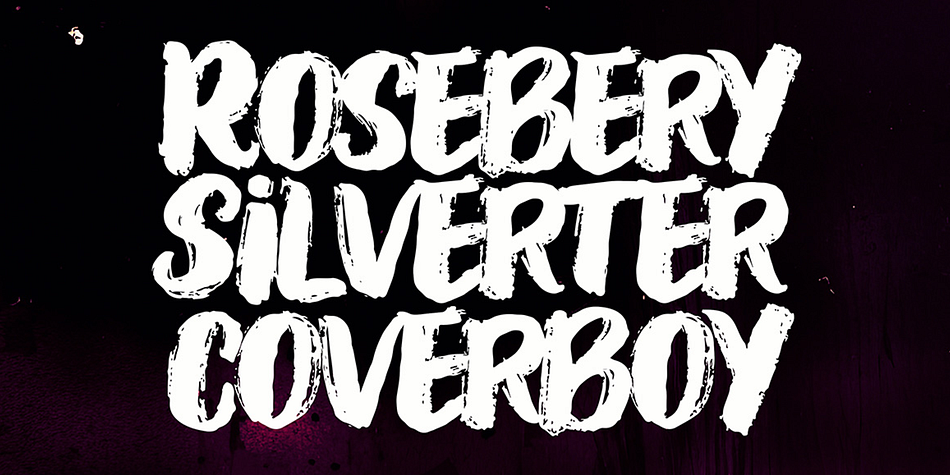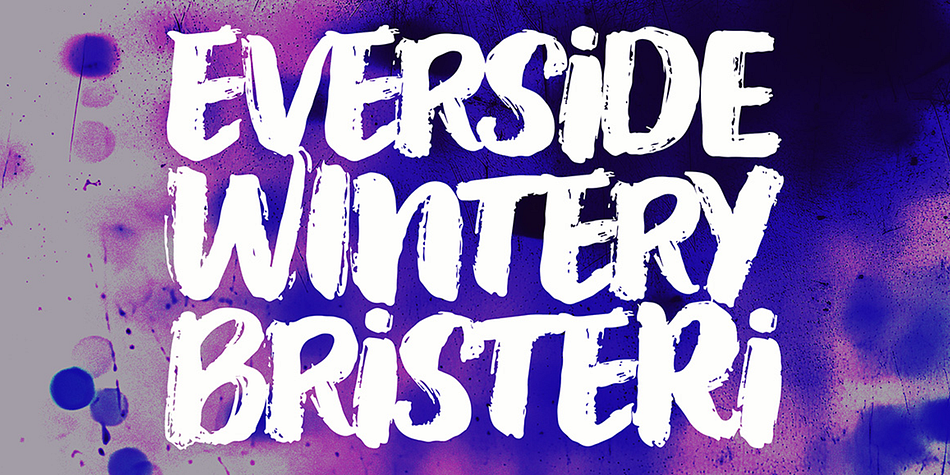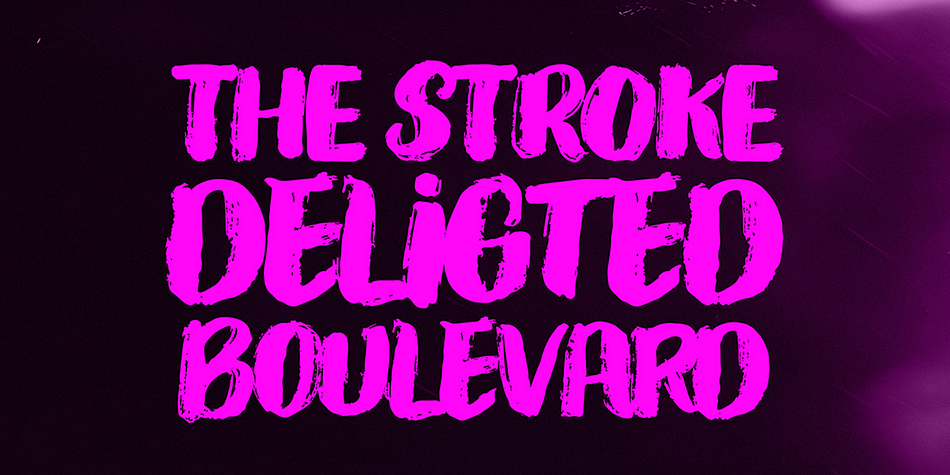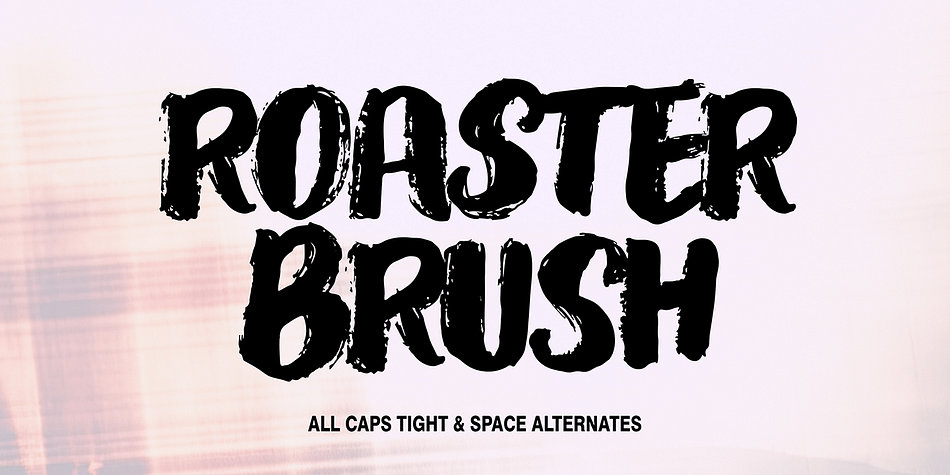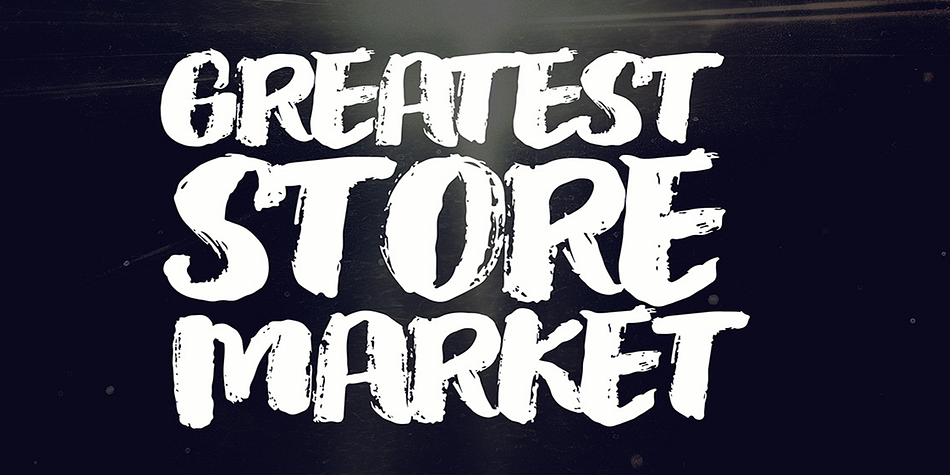
Roaster Collection is a brush display and hand display font family. This typeface has six styles and was published by Fontasticlab.
Roaster is based on an art ink brush style. The brush strokes are rough and messy, yet natural as well. Roaster is a stylish typeface and is very suitable for use in apparel screen printing, logos or album covers.
This family includes four styles of the brushed Roaster and two styles of Handson: a hand drawn family including uppercase, lowercase, numbers, punctuation, currency, accents and alternates for the uppercase glyphs.